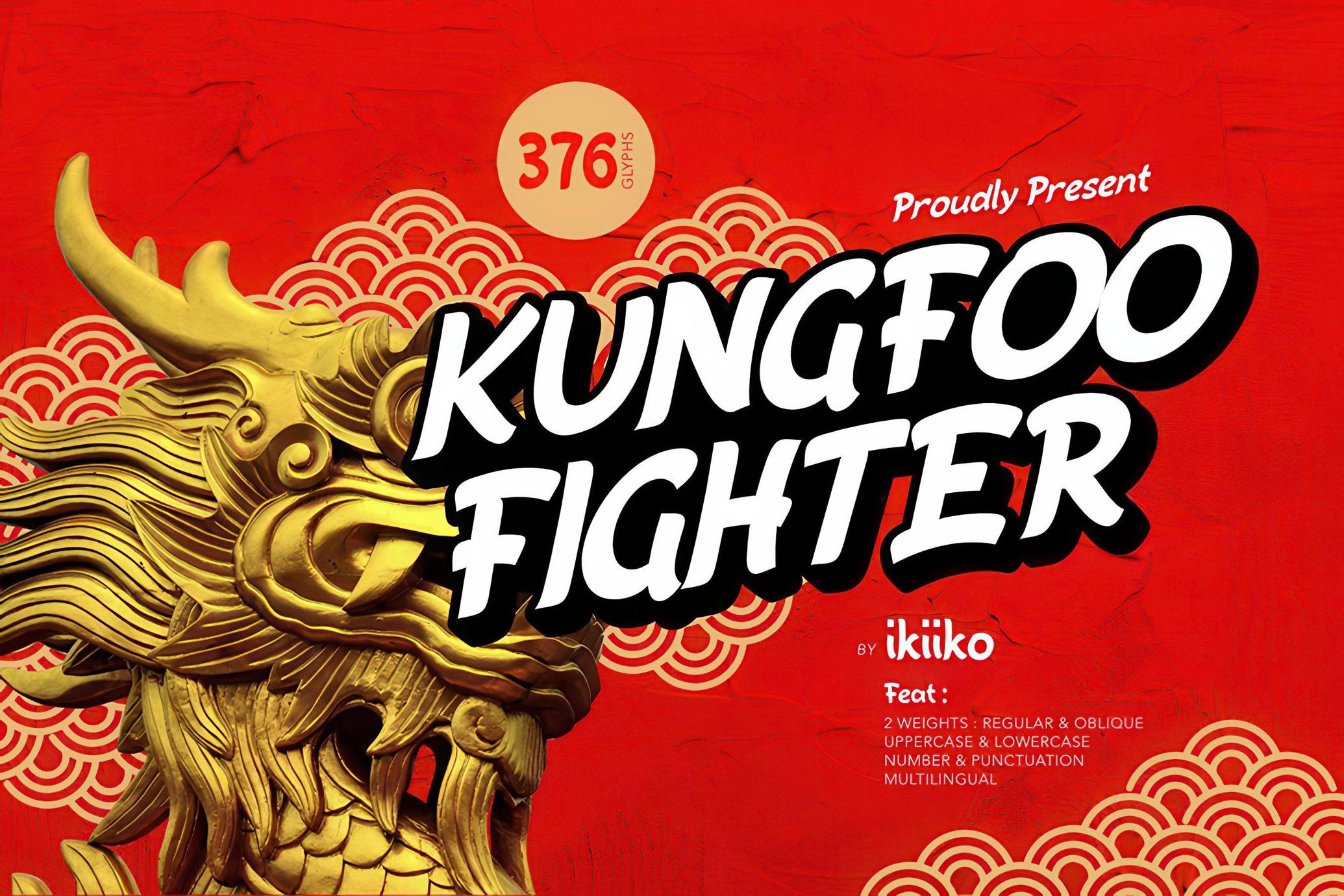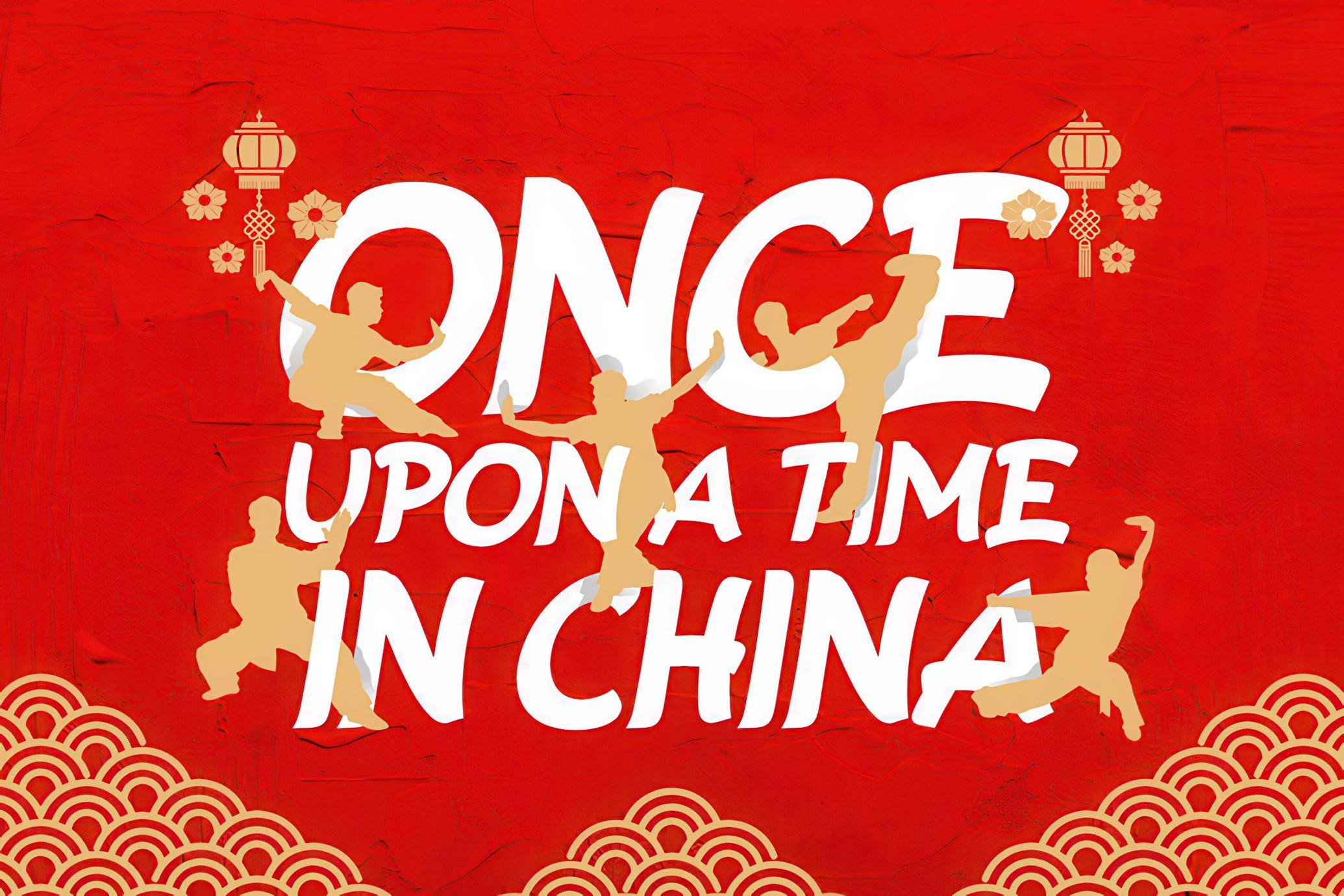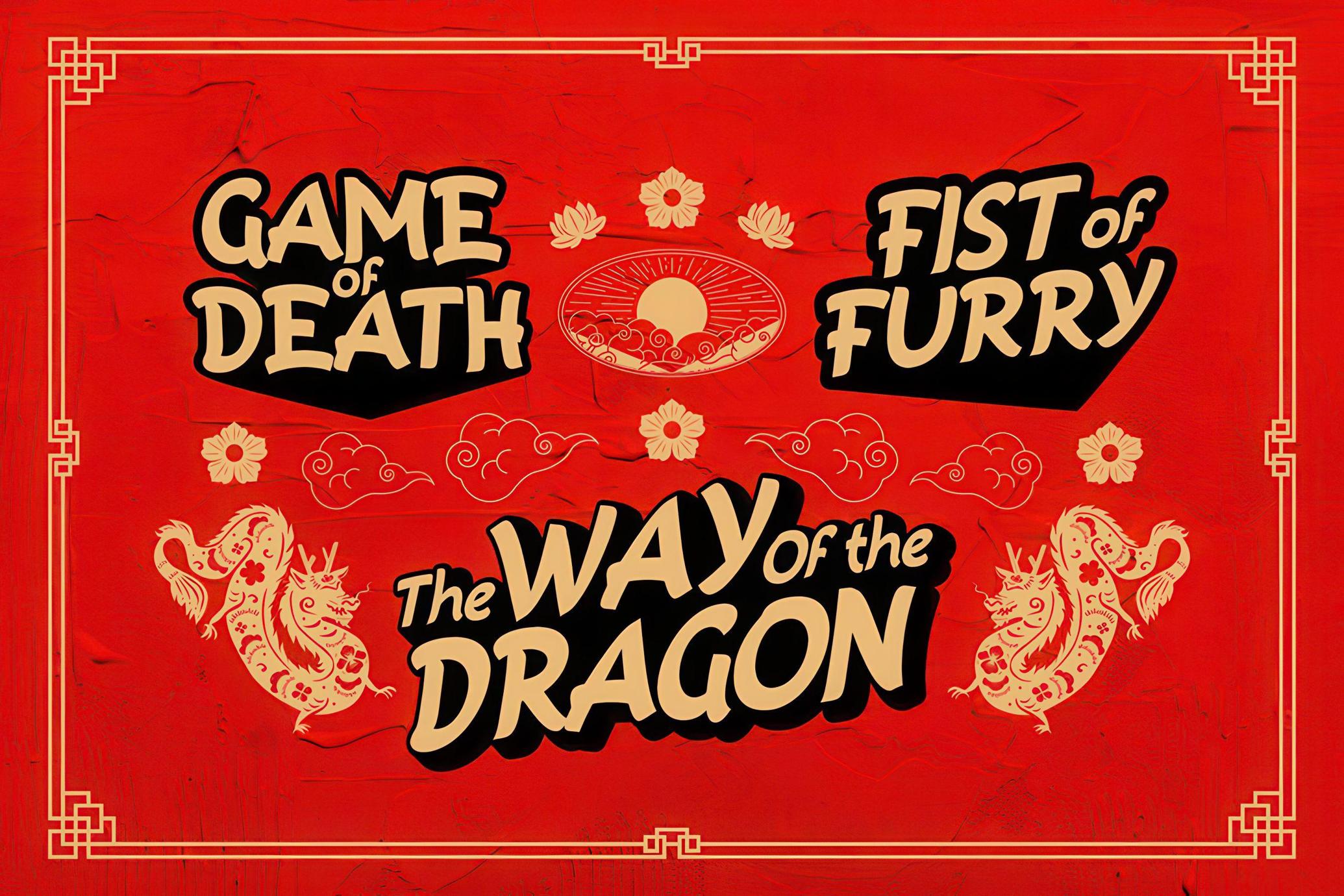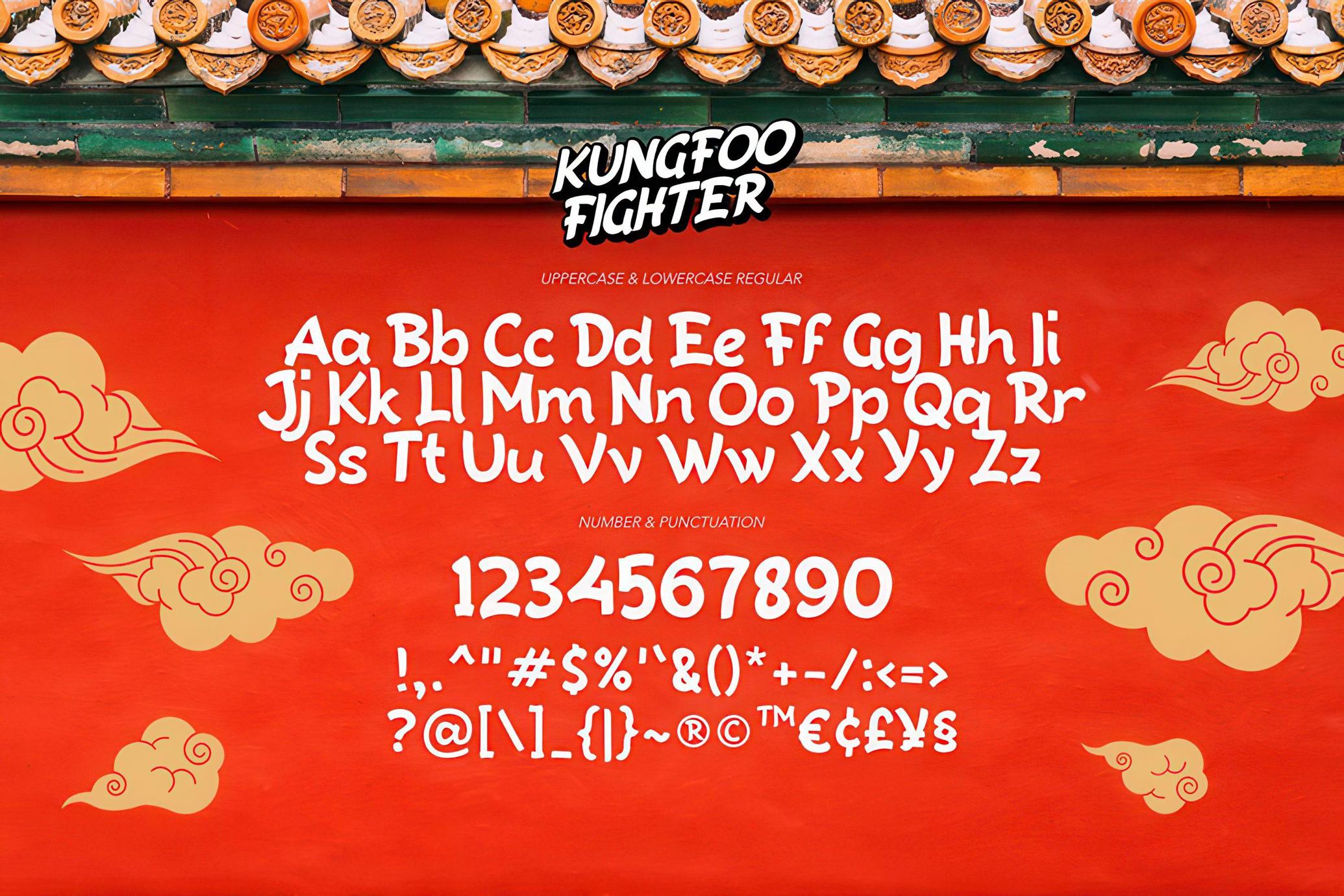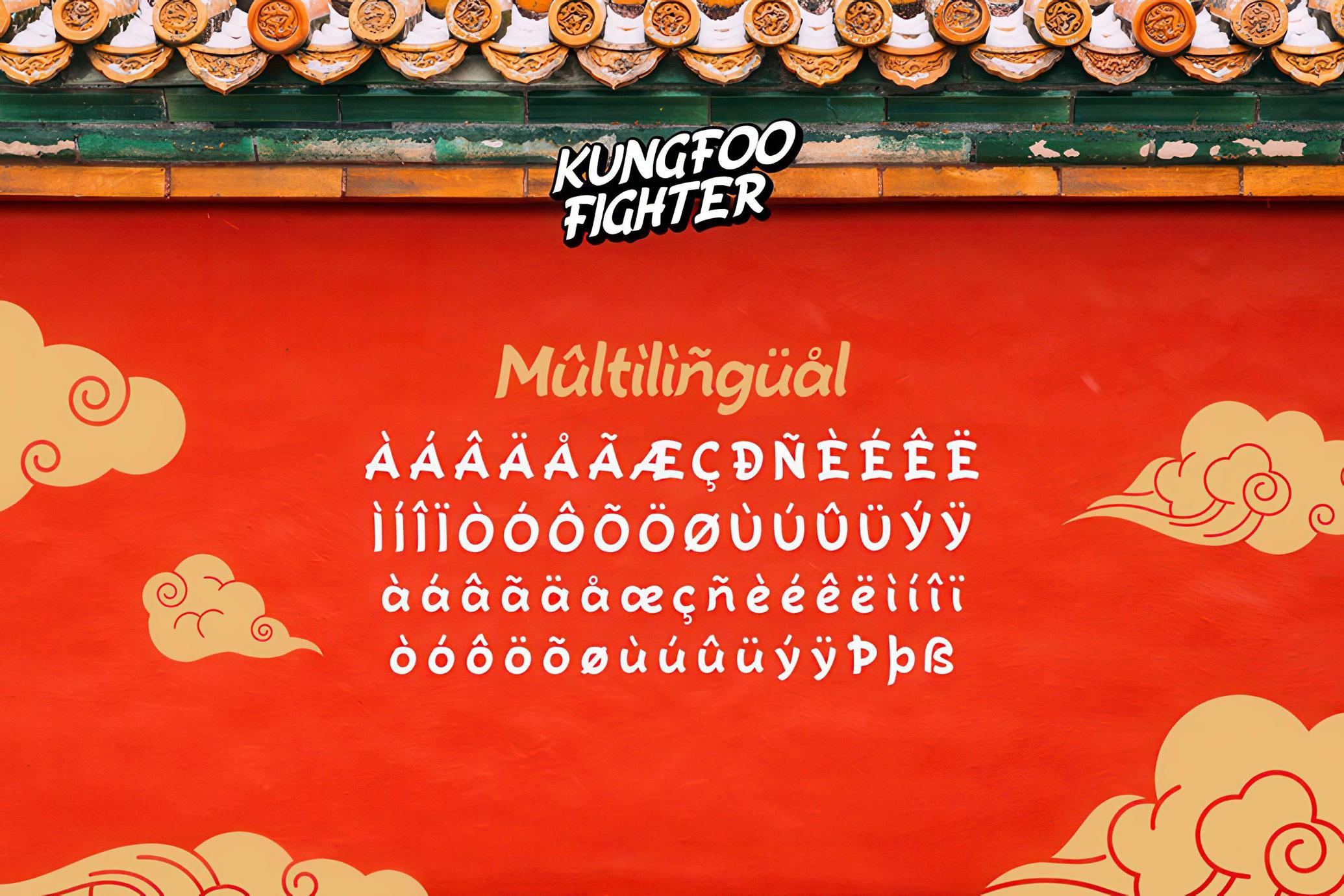
Kungfoo Fighter - Kungfu Font
KungfooFighter
Oblique
This typeface is inspired by the asian character brush strokes . This font has a bold & bold character, with flexible curves. This typeface is perfect for poster design, food & beverages, asian stuff, community logo, magazine, quotes, or simply as a stylish text overlay to any background image.
- 2 Weights : Regular & Oblique
- Number & Punctuation